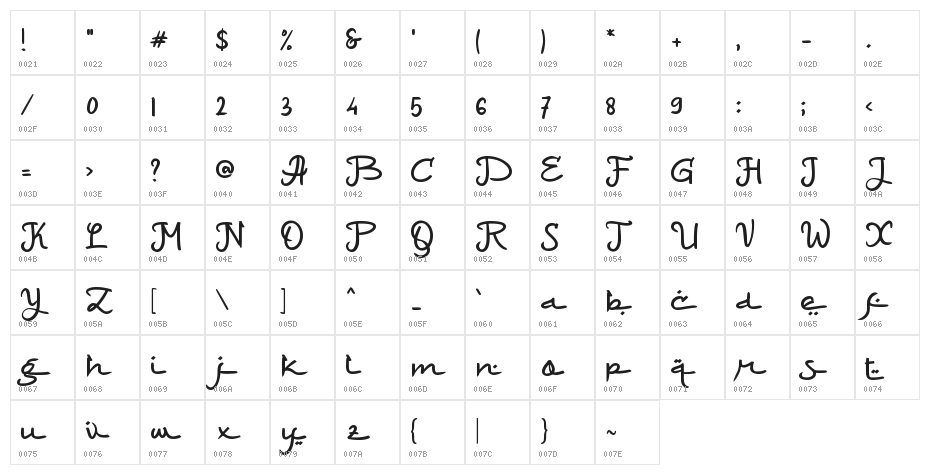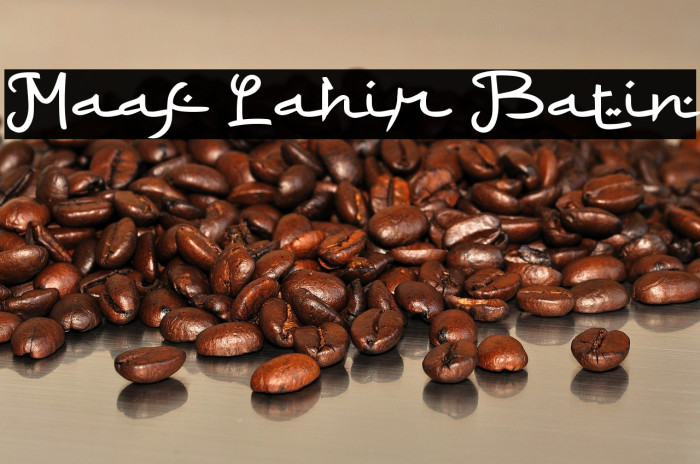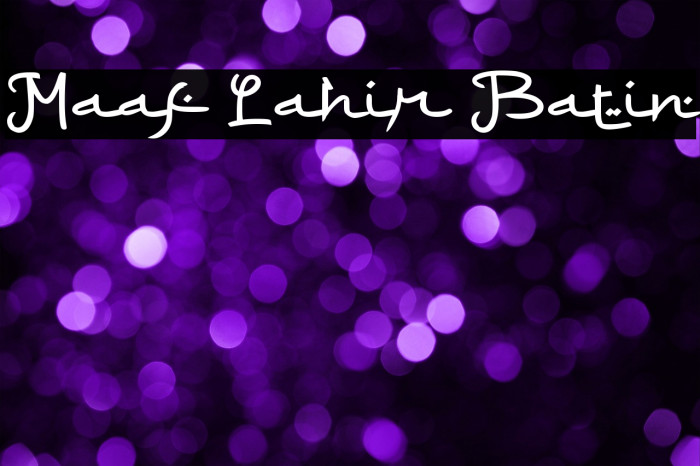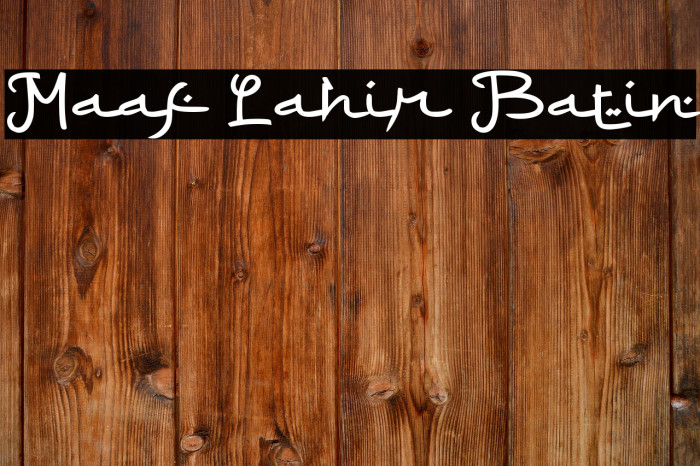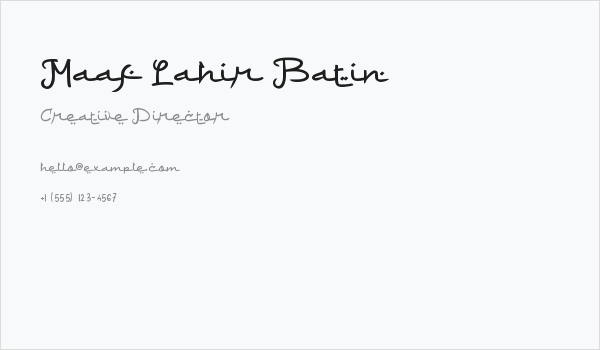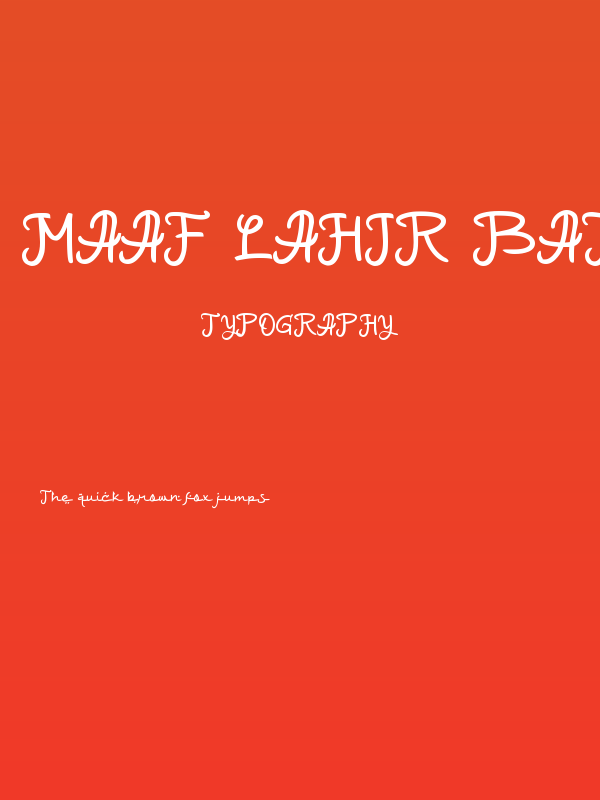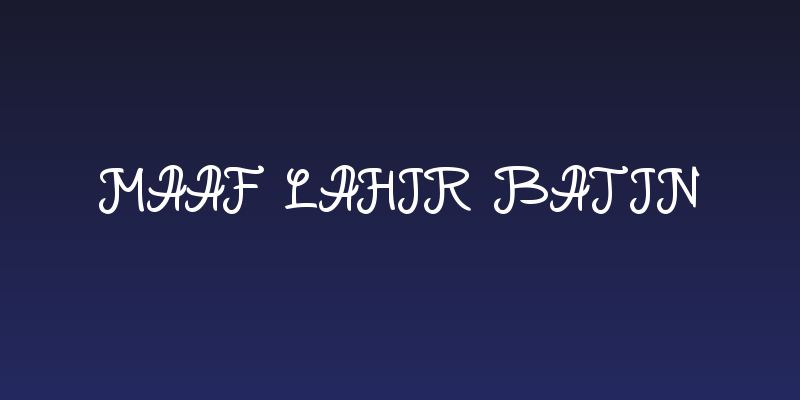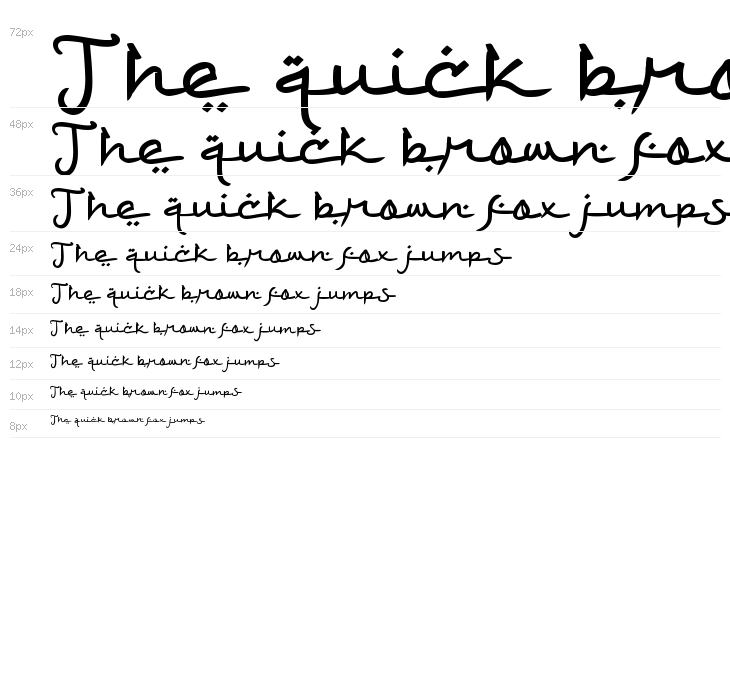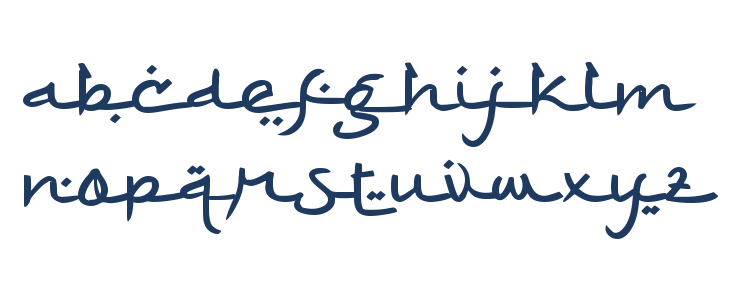
Maaf Lahir Batin Font
Maaf Lahir Batin Description
This font features a playful and whimsical script style with a handwritten appearance. The uppercase letters are bold and slightly exaggerated, giving them a lively and energetic feel. The lowercase letters maintain a consistent flow, with some characters featuring unique loops and curls that add to the font's charm. The numbers are clear and easy to read, while the special characters are creatively designed to match the overall aesthetic. The font's strokes are smooth and rounded, contributing to its friendly and approachable look.